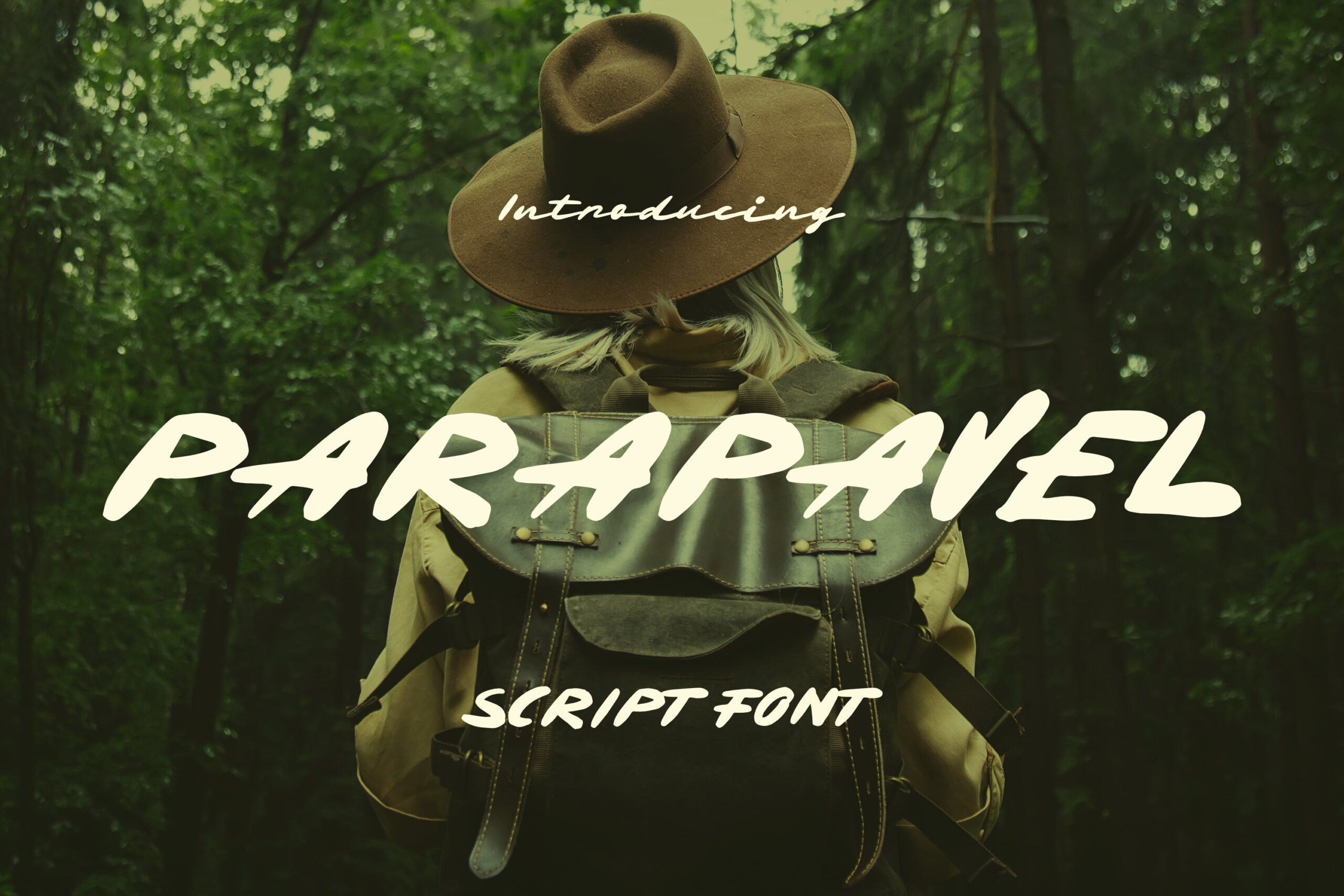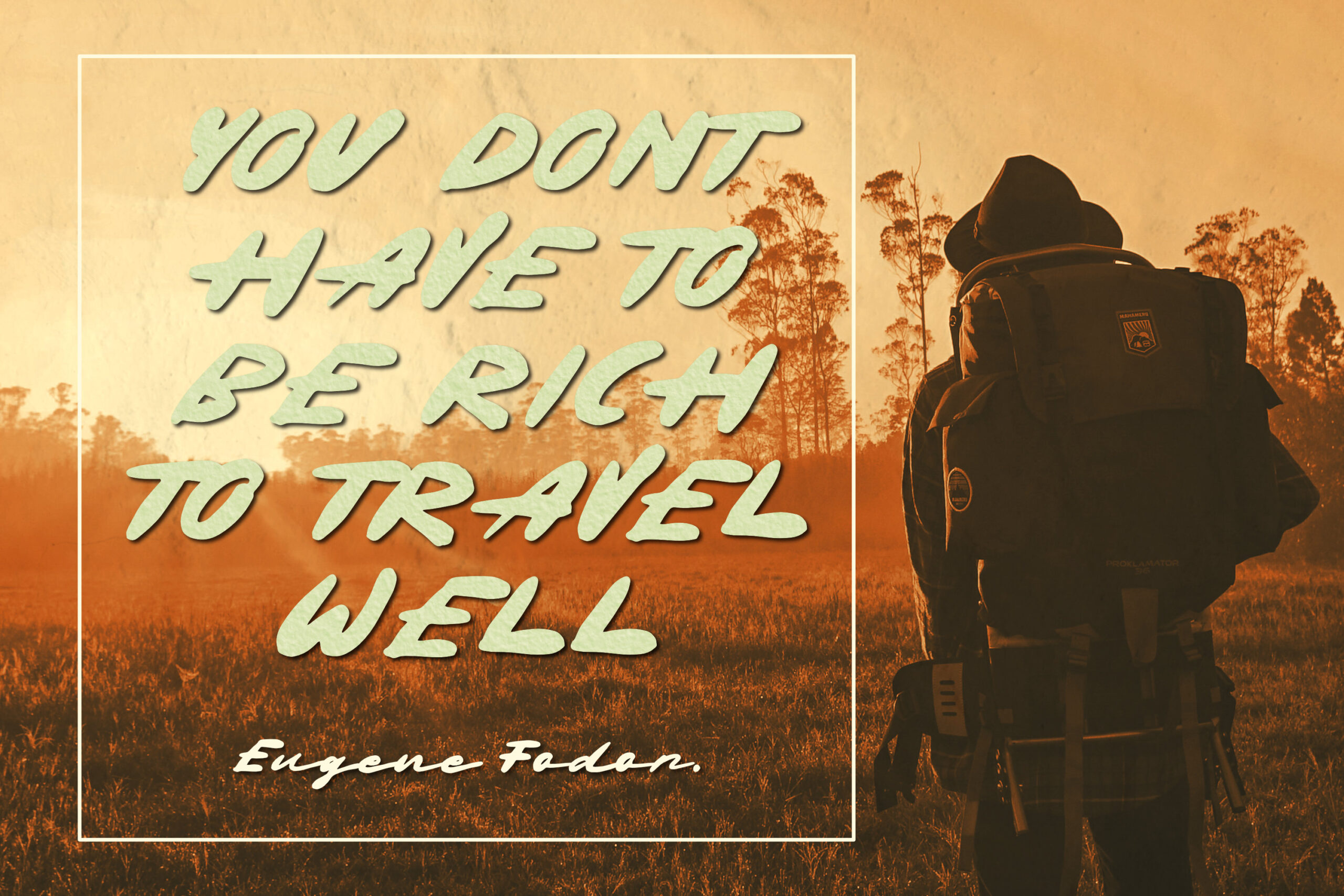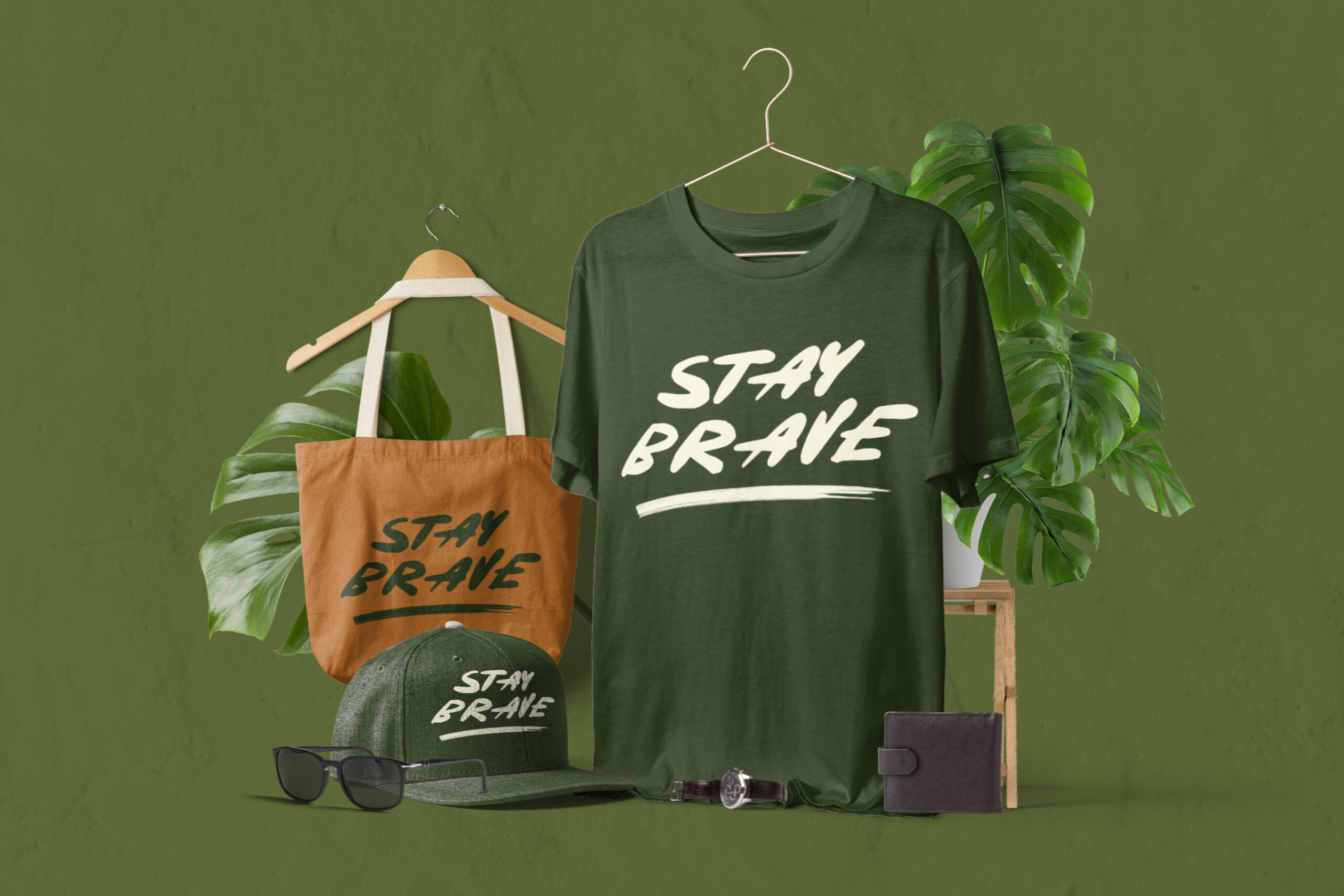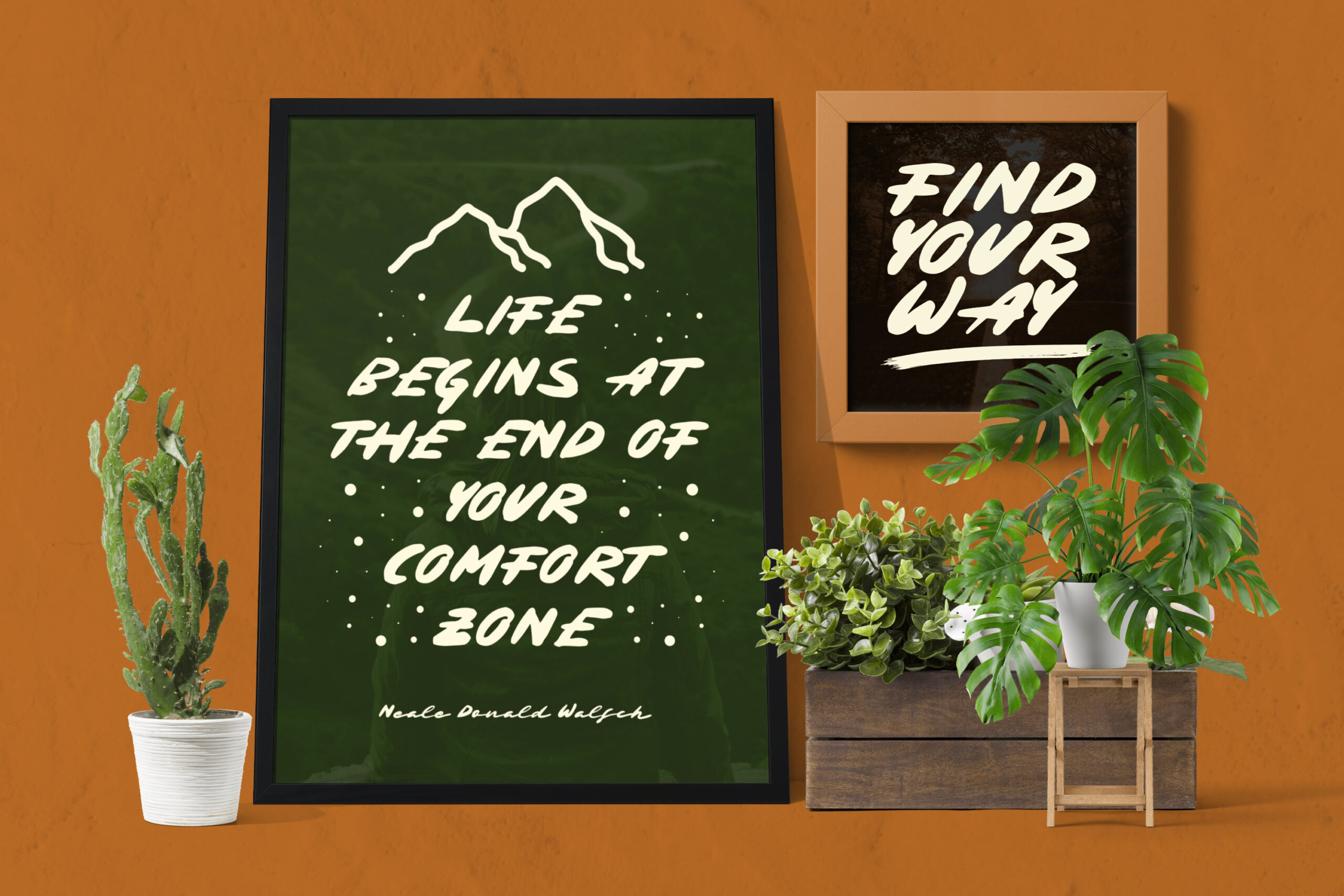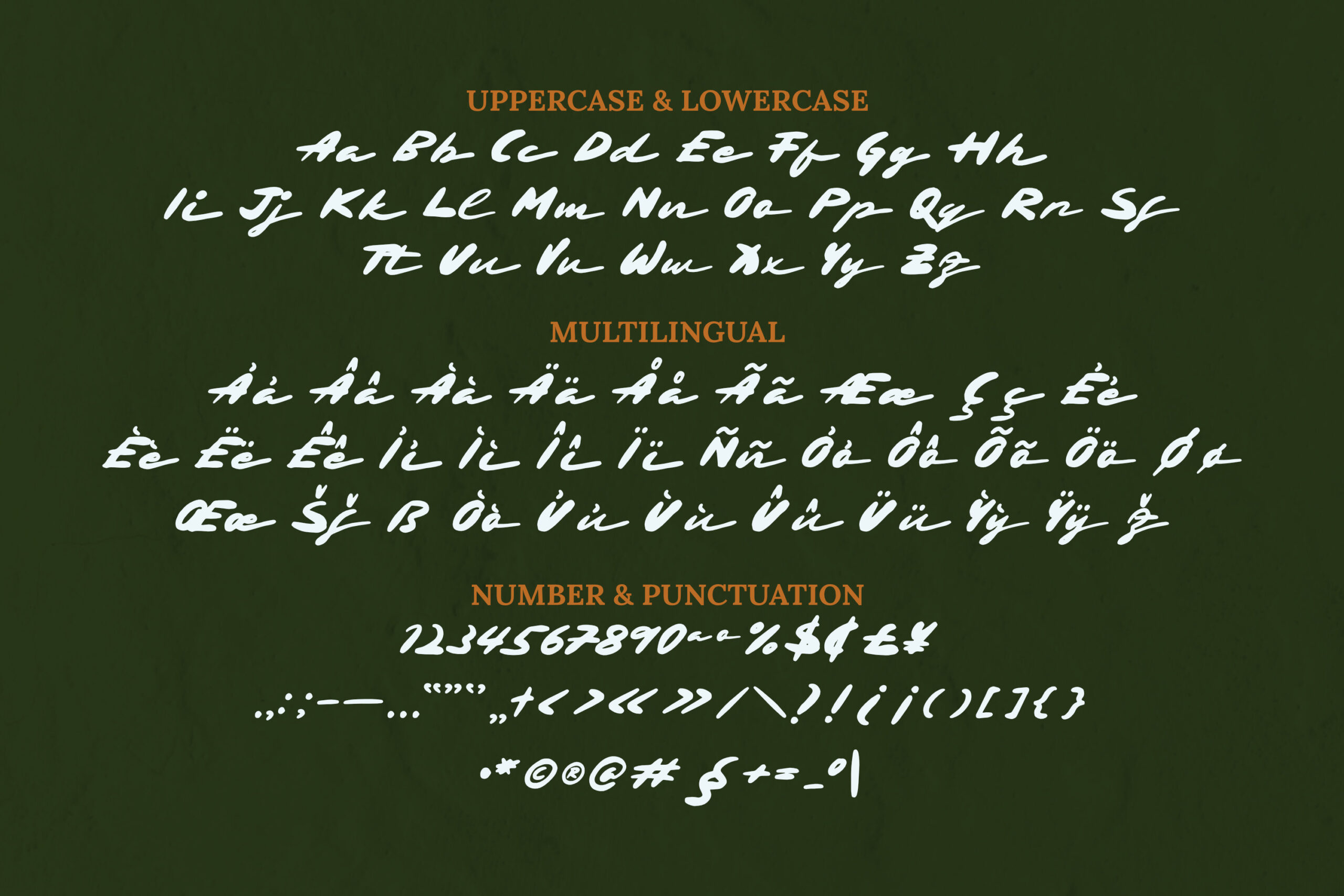
Parapavel is a bold script font that blends adventurous energy with a hand-drawn personality. Inspired by travel, exploration, and the outdoors, its thick brush strokes and dynamic flow create a rugged yet approachable character. Whether you’re designing travel posters, nature-inspired quotes, or outdoor apparel, Parapavel adds a sense of movement and bold expression to your layout.
This font includes uppercase, lowercase, numbers, punctuation, and multilingual support, making it both stylish and practical. Perfect for branding projects, t-shirt designs, posters, or eco-conscious merchandise, Parapavel speaks directly to adventurers, storytellers, and free spirits who want their message to stand out with character and warmth.
Parapavel